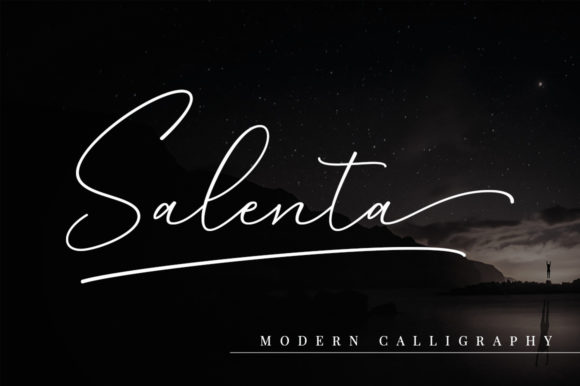
Introducing Salenta Font, an exquisite calligraphy font that will transform your designs into breathtaking works of art. Crafted by the renowned Megatype, Salenta embodies elegance and charm, with its soft, sweeping strokes and subtle ink textures.
Delve into the world of Salenta, where words dance across the page with an ethereal grace. Its carefully crafted forms evoke a sense of timeless sophistication, making it the perfect choice for those seeking a touch of luxury and refinement.
Whether you're designing elegant logos, crafting personalized signatures, or creating captivating wedding stationery, Salenta will elevate your creations to new heights. Its versatility extends to high-end packaging, alluring websites, and any project that demands a handwritten and indulgent touch.
Indulge in the captivating allure of Salenta Font. Its delicate flourishes and enchanting curves will captivate your audience, leaving a lasting impression of sophistication and timeless beauty.